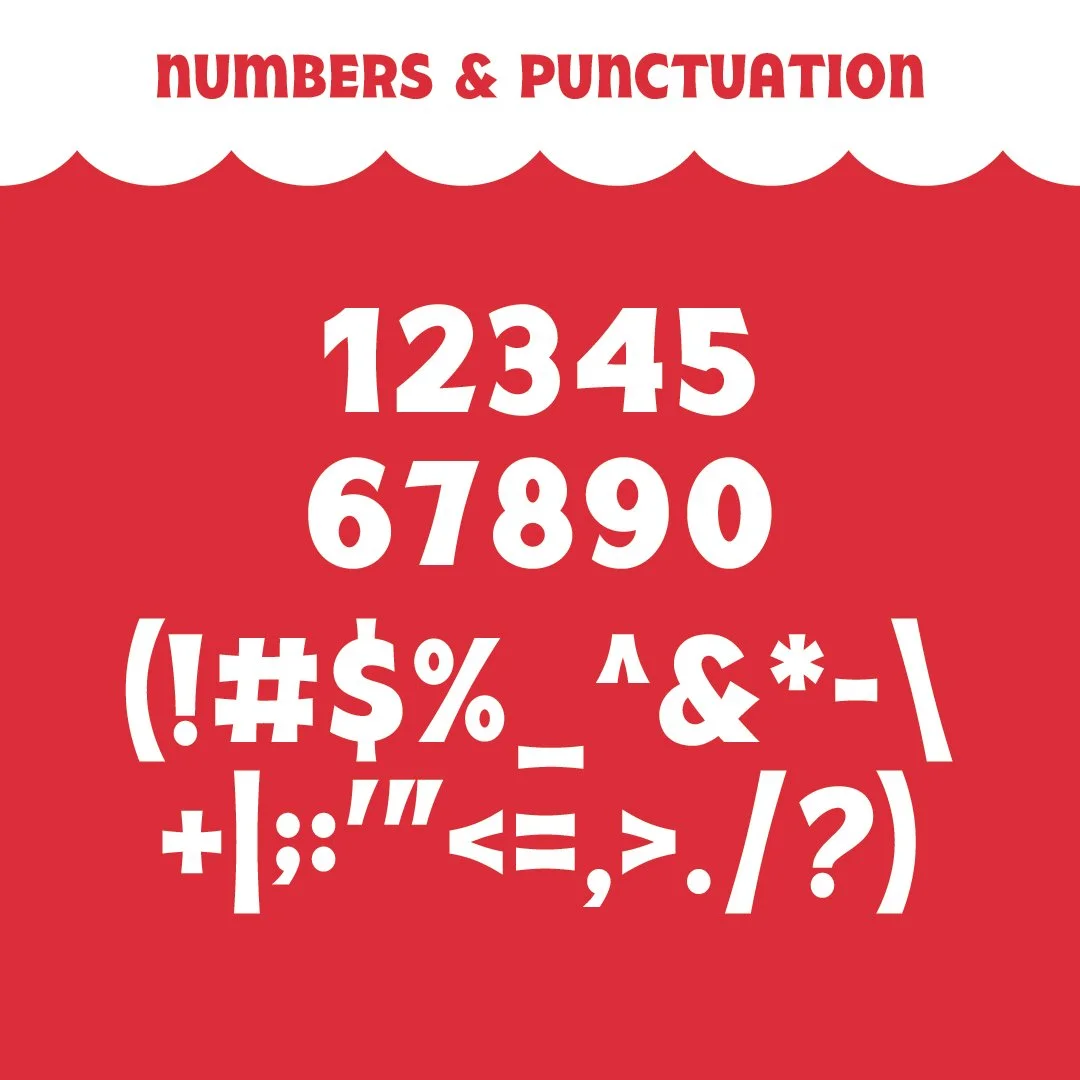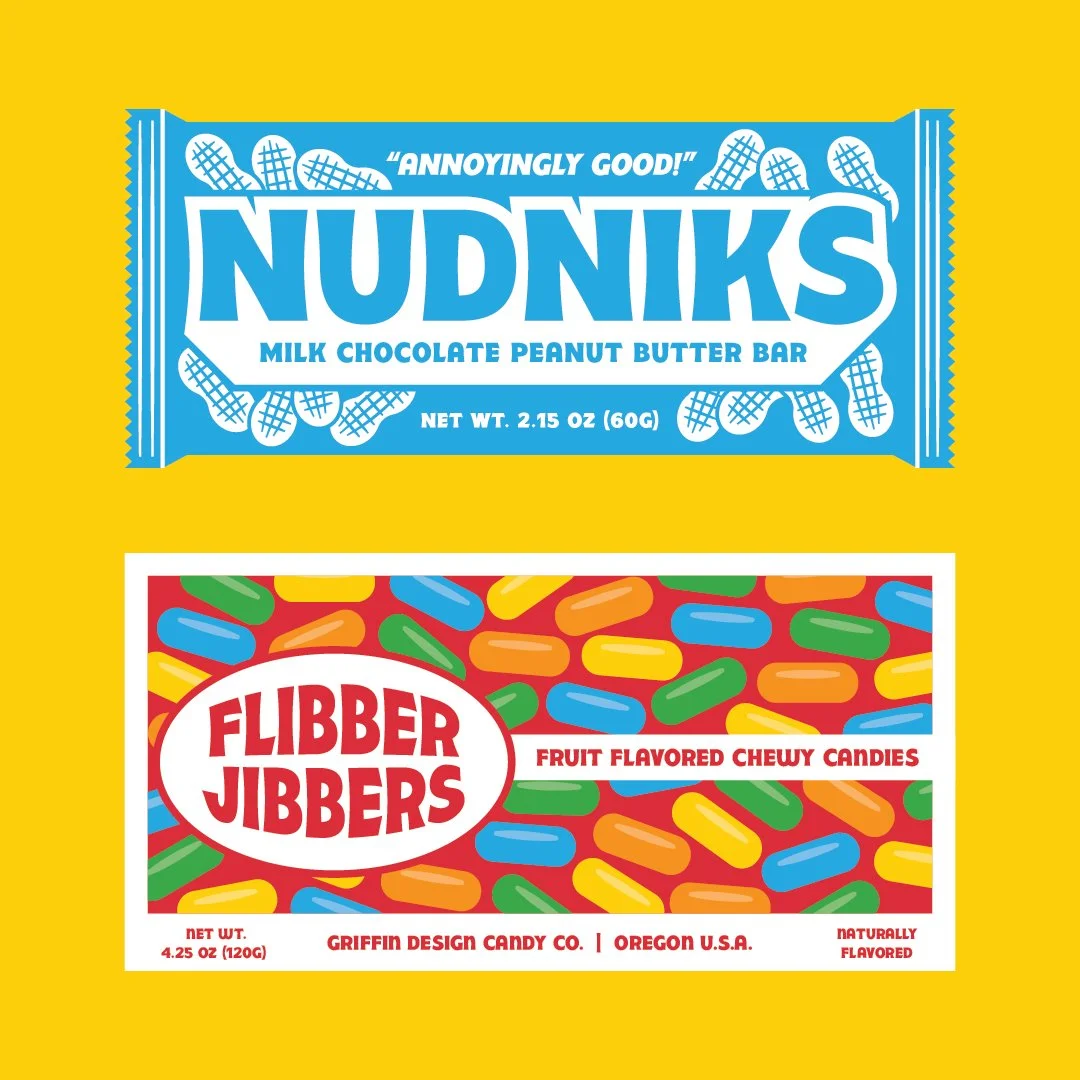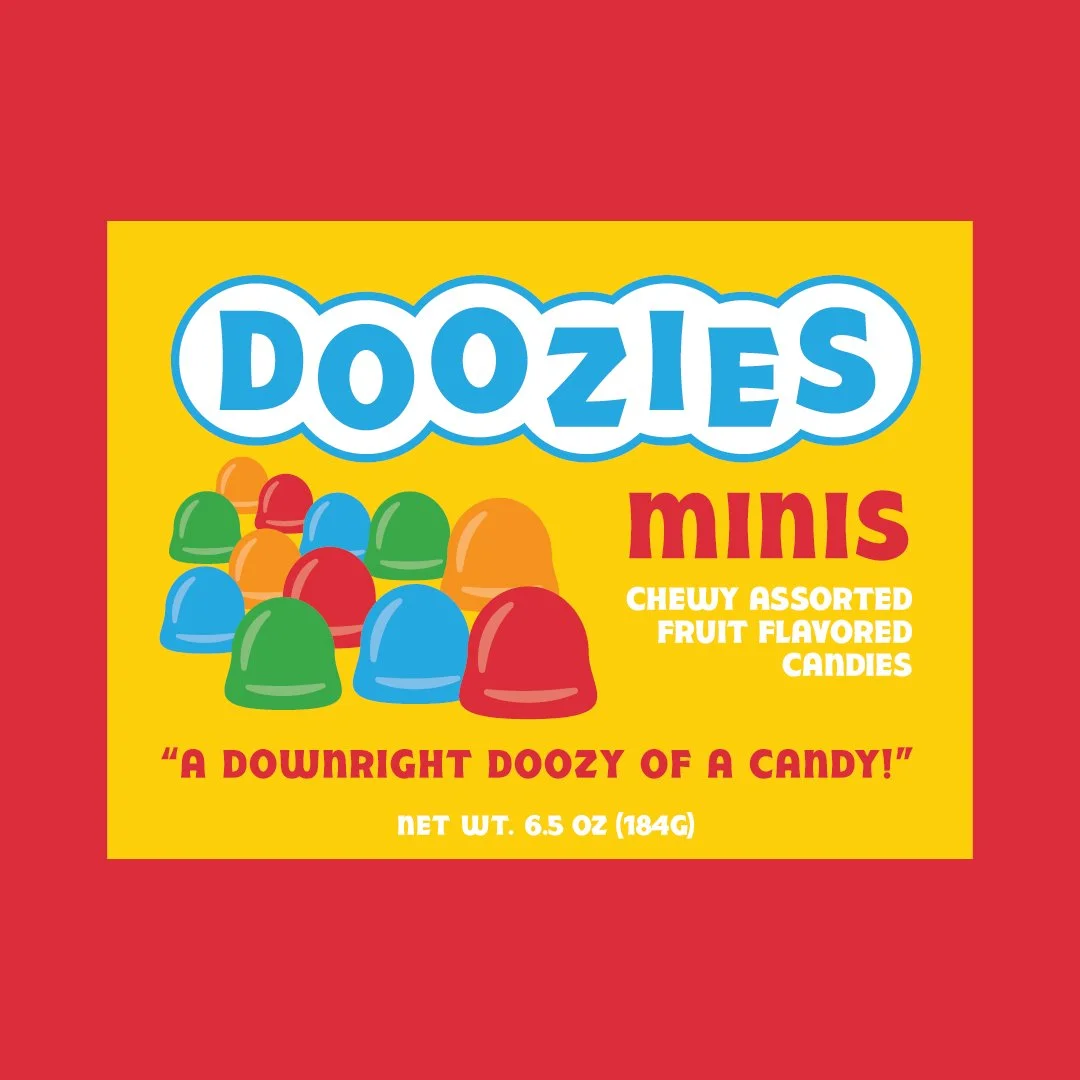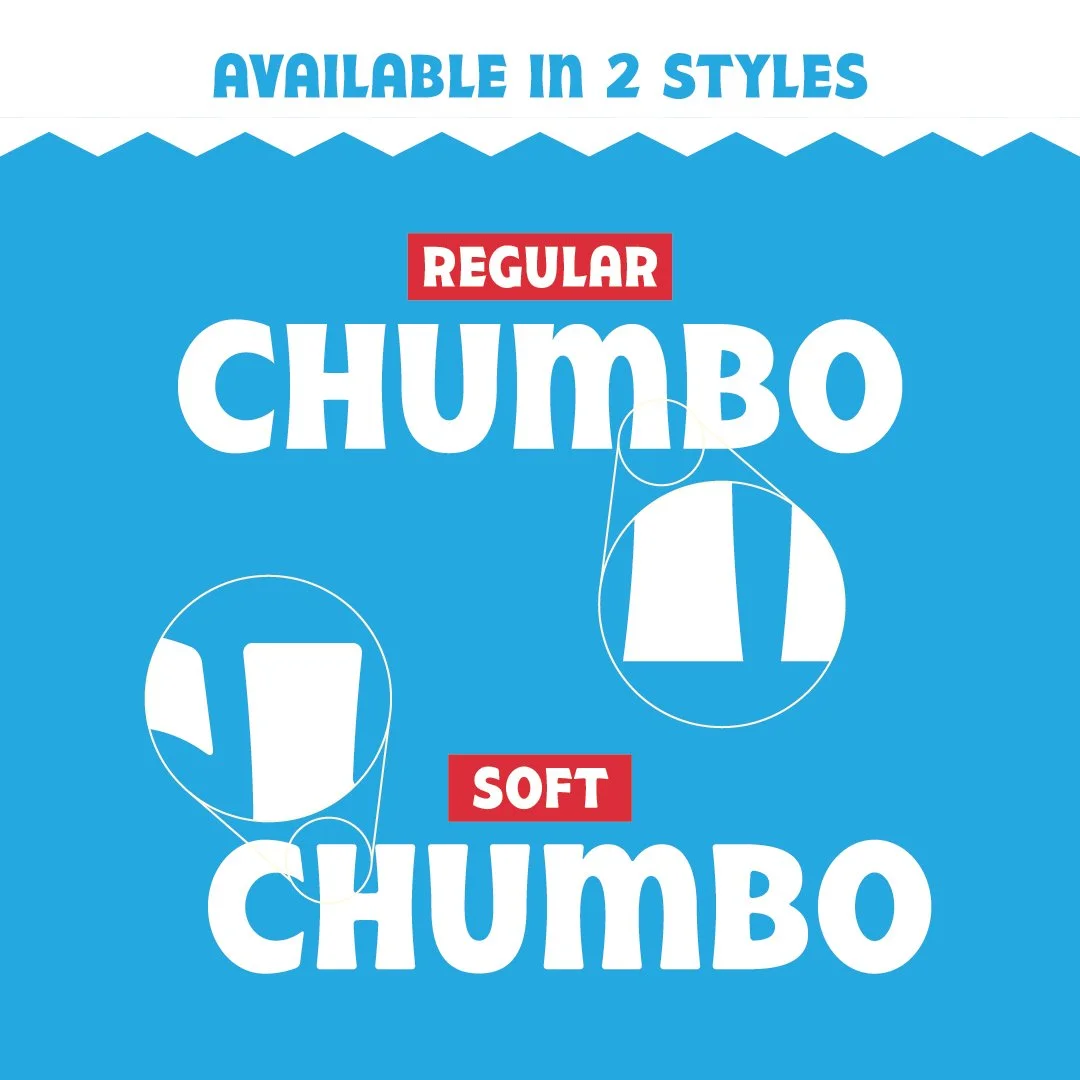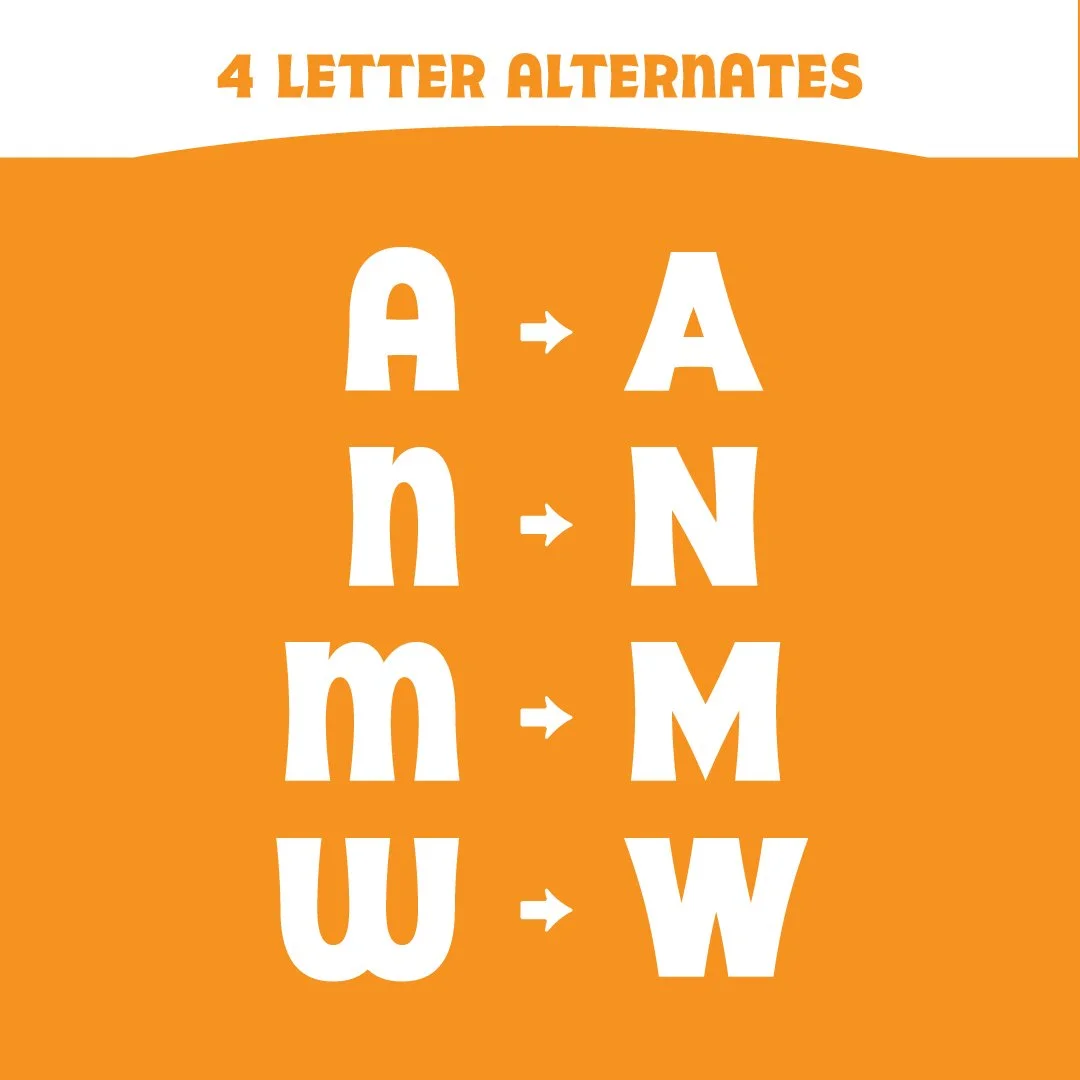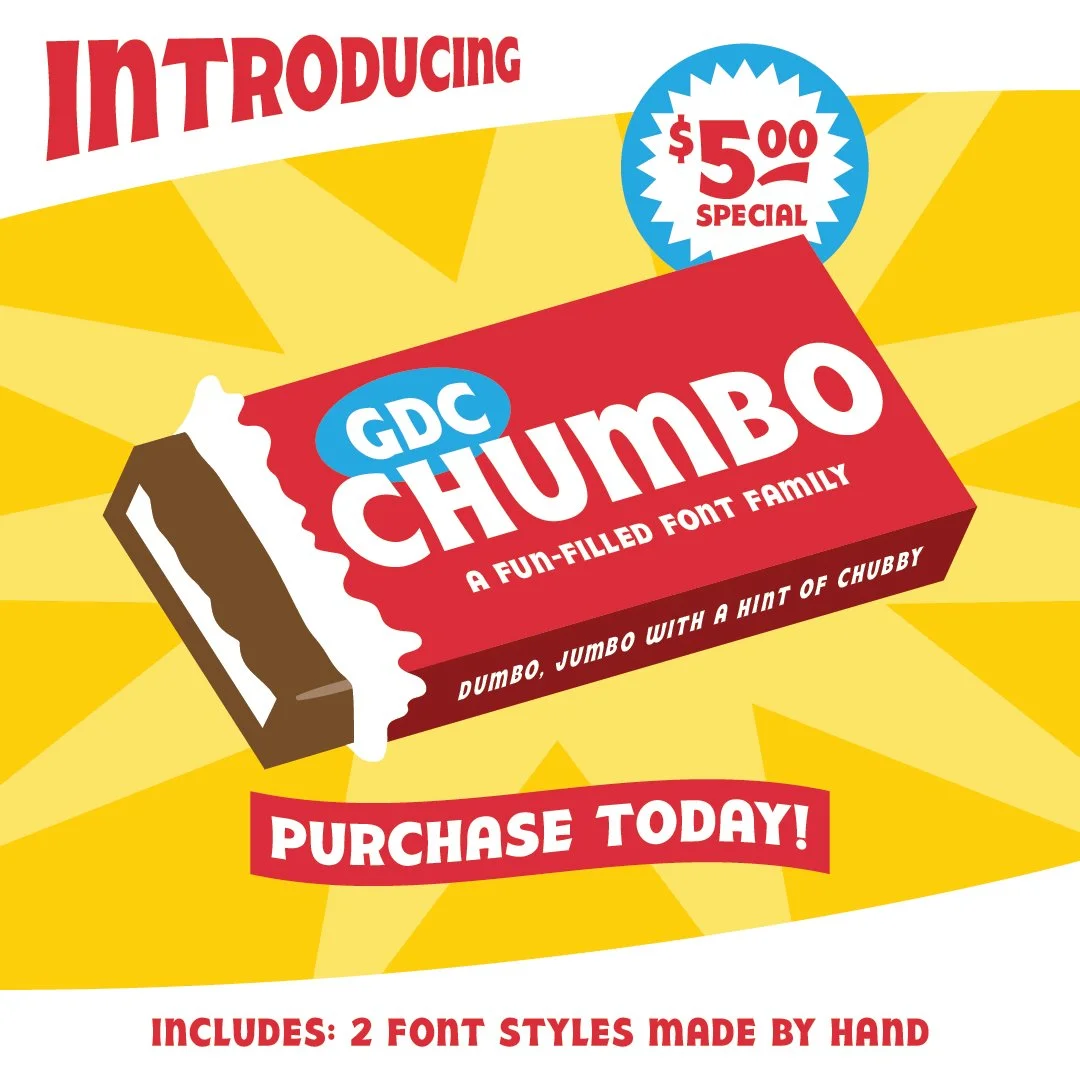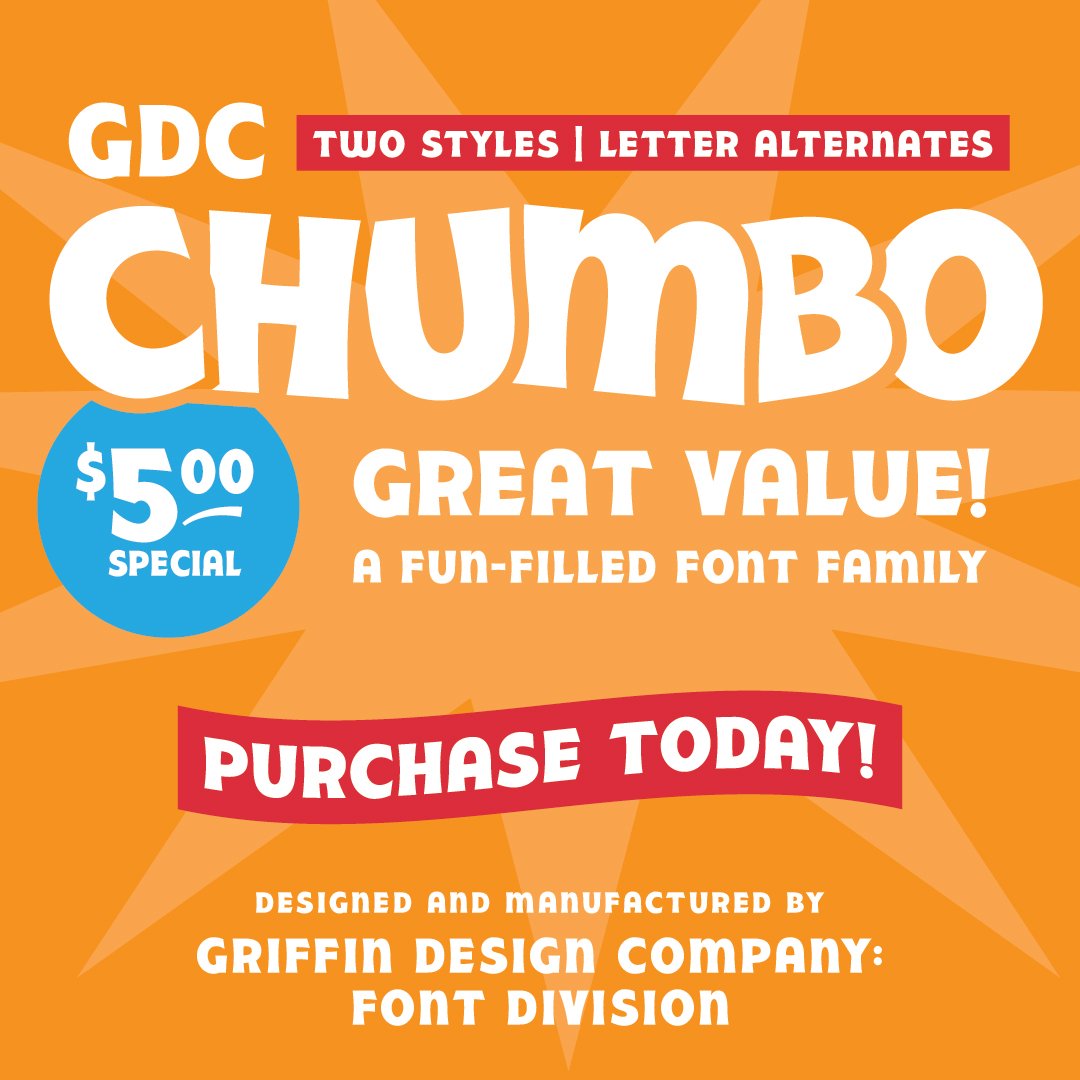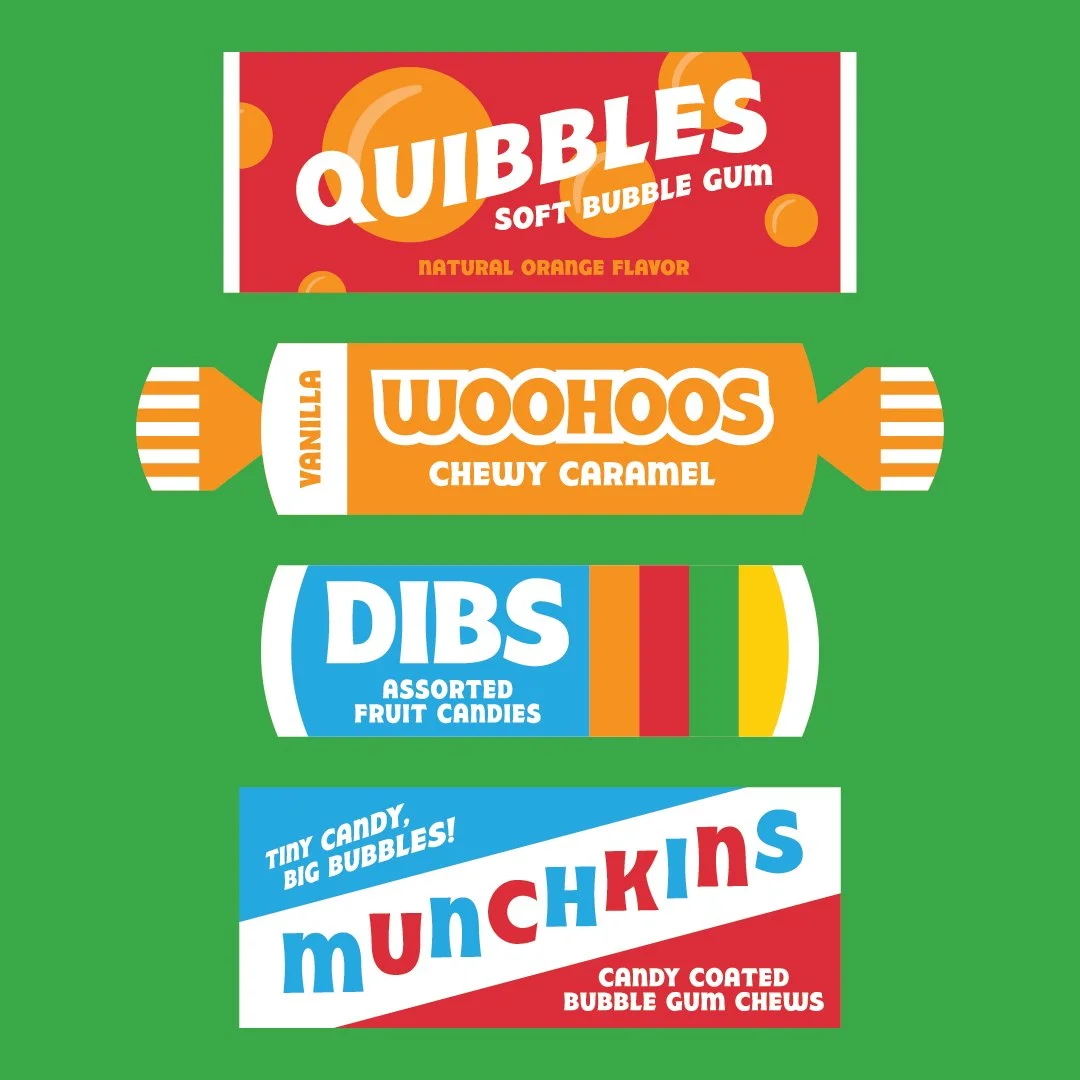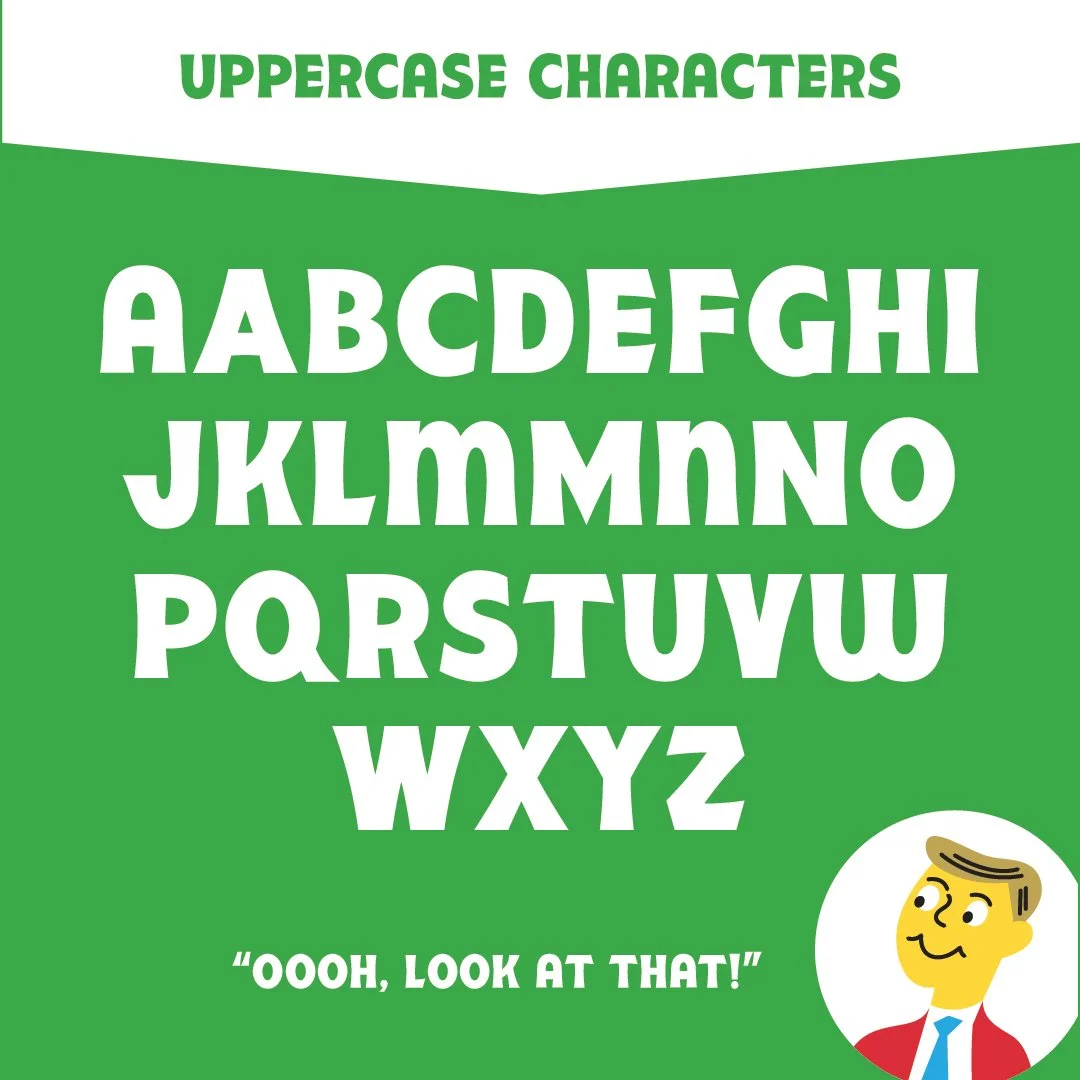
GDC Chumbo Typeface
GDC Chumbo is a custom typeface inspired by vintage candy packaging. This font includes uppercase letters, numbers, and punctuation in 2 different styles.